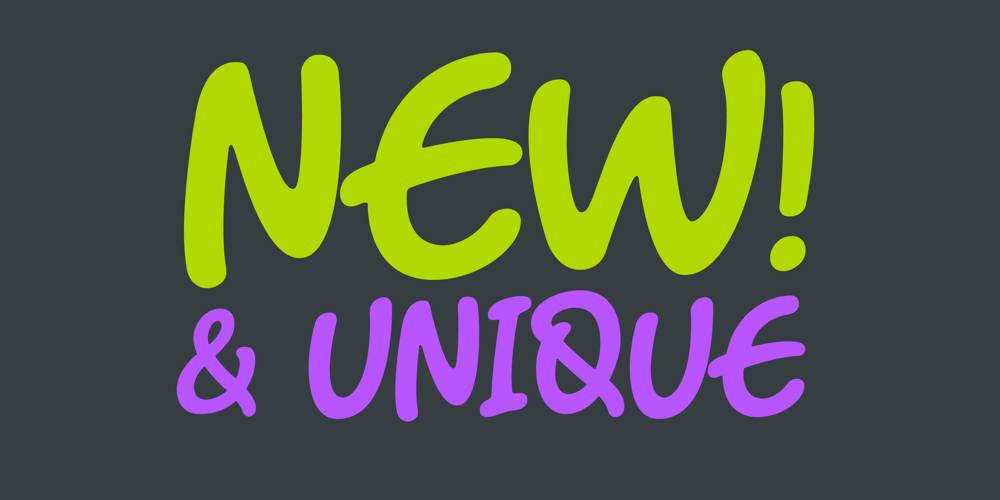
Romy Font Family was designed by Alejandro Paul, Angel Koziupa and published by Sudtipos. Romy contains 2 styles and family package options. Romy is a fresh take on casual handwriting. It combines aspects of comedy, graffiti, greeting cards, and refrigerator notes. The unmistakable lettering expertise of Angel Koziupa and smooth, crisp digitization of Alejandro Paul provide a humorous, friendly and lively typeface.